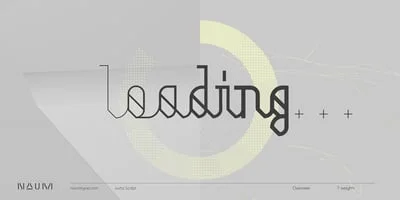
Juxta Font
Juxta Font is ideal for contrasting design projects including contemporary art galleries, modern design studios, creative comparison campaigns, architectural contrast exhibitions, dynamic marketing materials, innovative tech companies, bold editorial layouts, and striking visual communication. This distinctive typeface works perfectly for design consultancies, creative agencies, modern art museums, architectural firms, and projects that celebrate visual contrast and sophisticated juxtaposition in contemporary design.
What makes Juxta Font exciting is its dynamic contrast character that perfectly captures the essence of visual juxtaposition and contemporary design tension. The font features contrasting letterforms with bold opposing elements that reflect the artistic power and visual impact of deliberate contrast in modern design. Its striking design elements embody the spirit of creative opposition and visual dialogue, making it perfect for projects that need to convey innovation, boldness, and connection to contemporary design principles. The carefully crafted contrasting details create an atmosphere of artistic tension and sophisticated comparison.
Juxta Font comes in multiple family variations including contrasting, dynamic, bold, and opposing styles. Each weight maintains the distinctive juxtaposition character while offering different levels of contrast intensity and visual presence. The font family includes opposing alternates, contrast ligatures, and dynamic variations that provide designers with comprehensive options for creating truly striking and visually powerful typographic compositions that celebrate design contrast.
Whether you're designing contemporary branding, creating dynamic marketing materials, or developing contrasting promotional graphics, Juxta Font provides the perfect typographic foundation for projects that celebrate visual excellence and design innovation. This remarkable typeface transforms ordinary text into compelling expressions of creative contrast and visual sophistication. Download this dynamic font today and juxtapose your design projects with the visual tension and contemporary elegance that captures the essential spirit of modern design contrast and artistic juxtaposition.